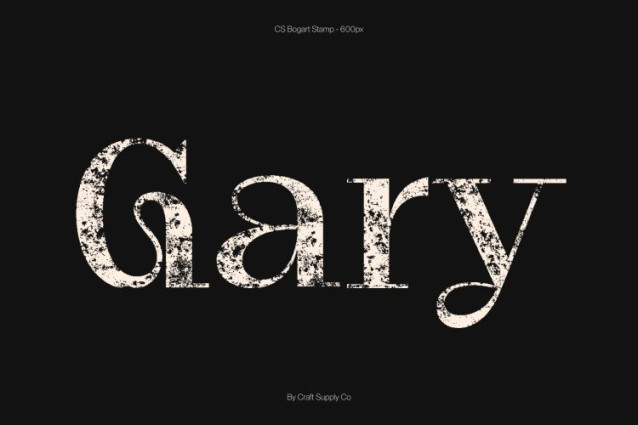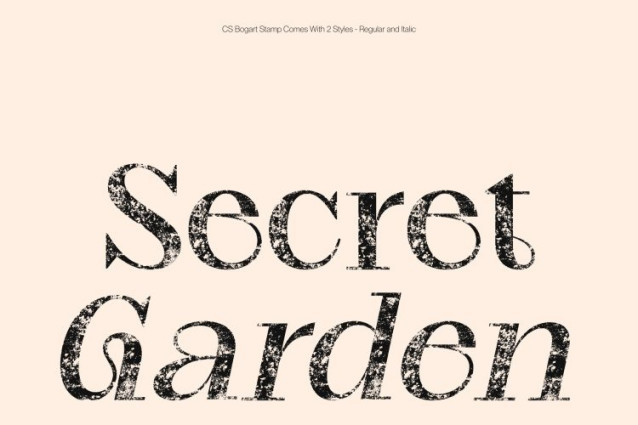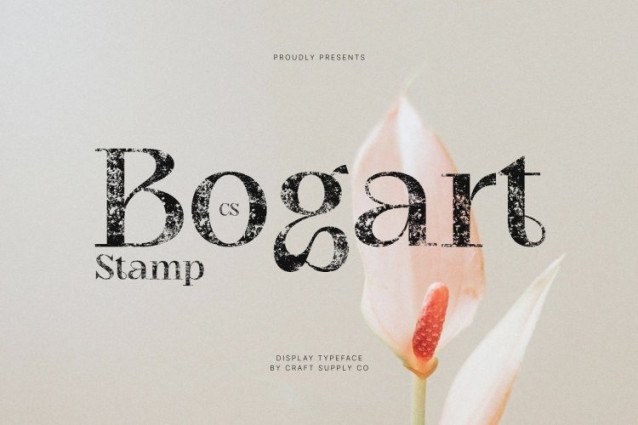
CS Bogart Stamp Font
CS Bogart Stamp Font This is a modern display serif font that embodies aesthetic elegance through graceful proportions and exquisite detailing, now enhanced with a distinctive stamp texture. The subtle distressed finish introduces warmth and authenticity, giving the font a tactile, handcrafted impression while preserving its refined sophistication.
Graceful Curves with Subtle Vintage Texture
Featuring smooth curves and delicate contrast between thick and thin strokes, this font maintains a harmonious and visually balanced structure. The refined serifs bring a sense of polish and luxury, while the textured effect adds depth and artistic charm creating a look that feels both timeless and character-rich.
Perfect for Luxury Branding and Creative Expression
The combination of elegance and stamped texture makes ideal for premium branding, fashion editorials, wedding invitations, upscale packaging, and artistic layouts. Its aesthetic presence enhances logos, magazine headlines, and promotional materials with a distinguished yet expressive personality.
Sophisticated, Versatile, and Full of Character
Blending classic beauty with contemporary refinement, this font adapts effortlessly across various design styles. The subtle texture elevates its visual appeal, making it perfect for projects that seek luxurious elegance with a slightly vintage, handcrafted edge.